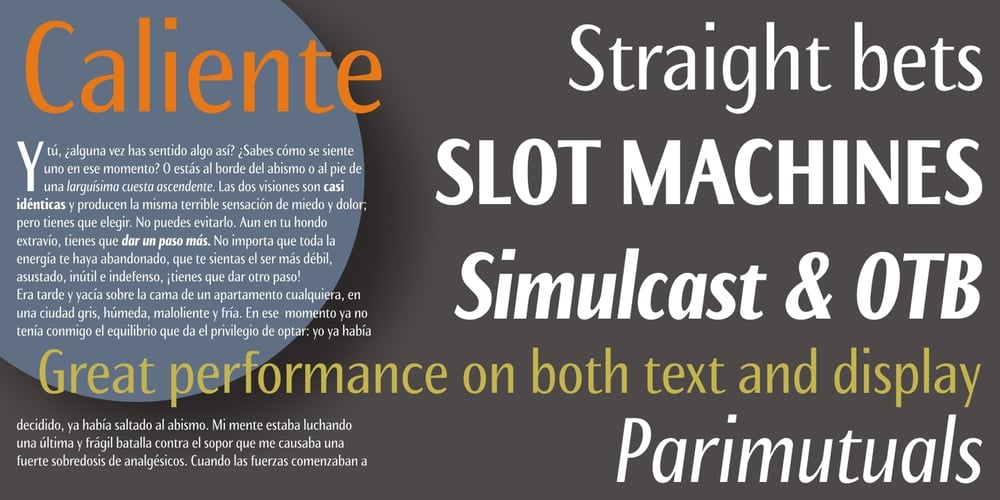
Caliente Font Family was designed by Jorge de Buen and published by Imprimatvr. Caliente contains 4 styles and family package options. This font is shaped to exhibit a very compact and characterized design, clearly distinguishable from the mainstream condensed sans-serif fonts. That is why Caliente has a conspicuous modulation and a medium-to-high contrast. Both features are seldom observed among ordinary fonts of its kind. However, Caliente is designed to suit perfectly well in a number of applications—from advertising to business letters—while accurately preserving its strong personality even in very small sizes.